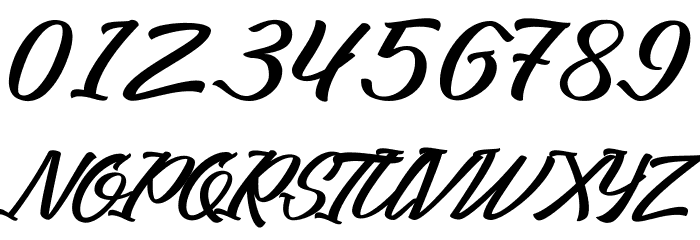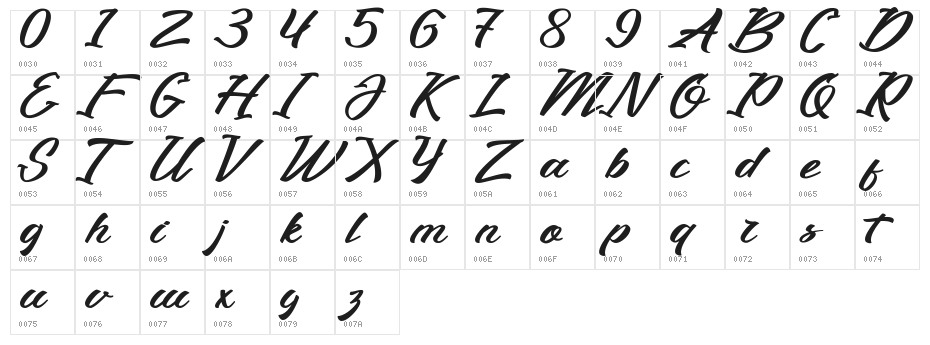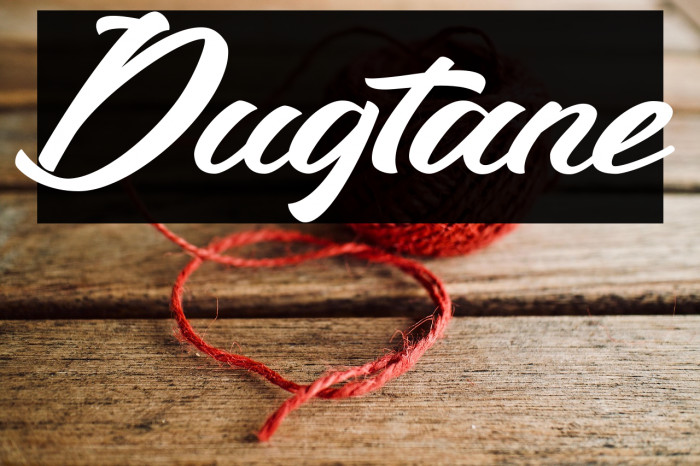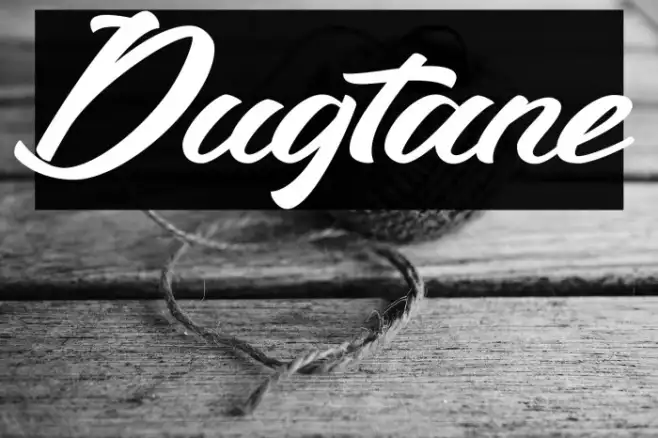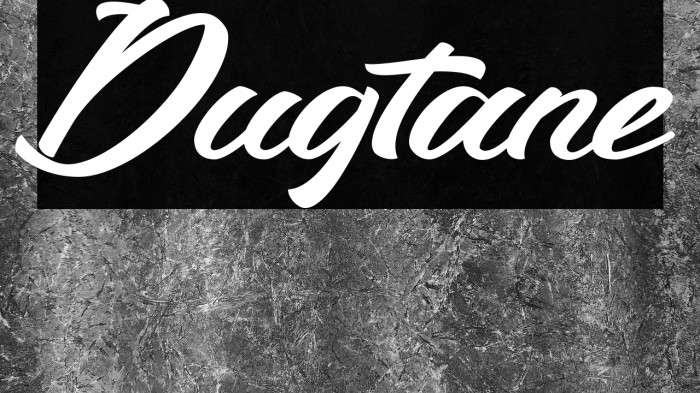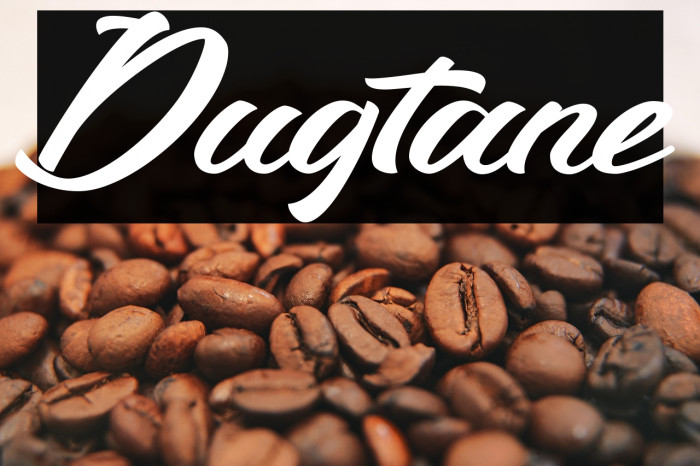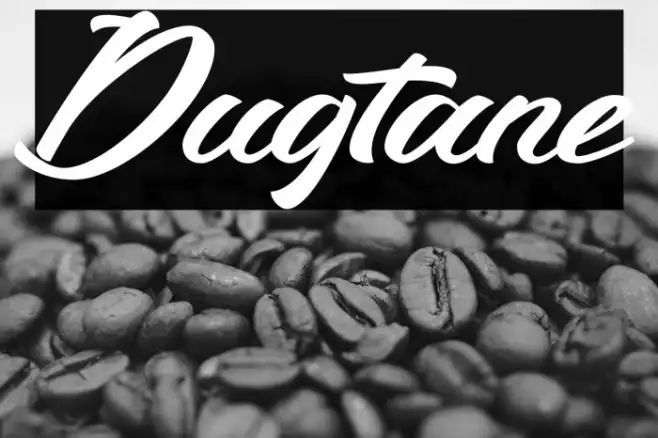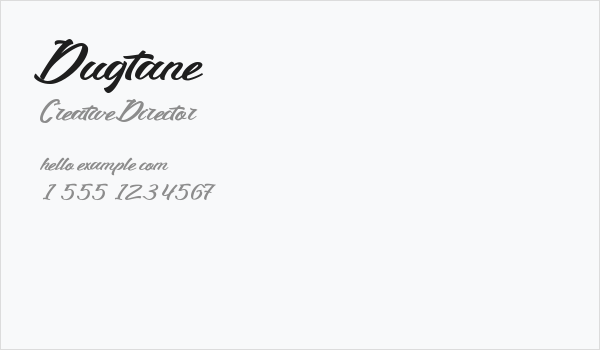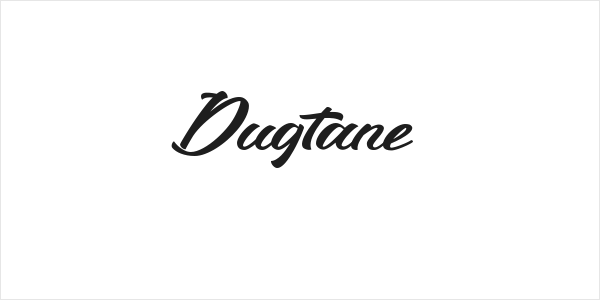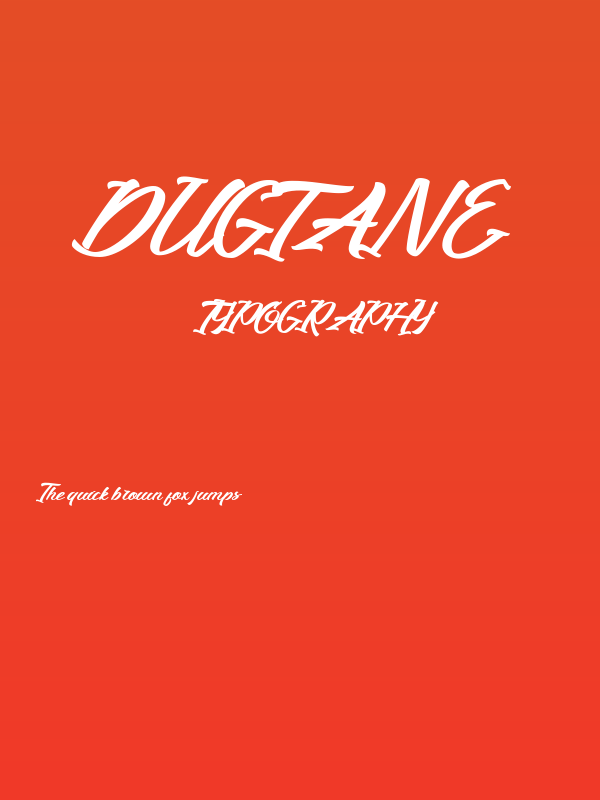
Dugtane Font
Dugtane Description
This font features a dynamic and flowing script style, characterized by its elegant and cursive letterforms. The uppercase letters exhibit a bold and confident presence, with sweeping curves and intricate details that enhance its decorative appeal. The lowercase letters maintain a consistent fluidity, seamlessly connecting to create a harmonious and continuous text flow. The numerals are designed with the same attention to detail, ensuring readability while maintaining the overall aesthetic. Special characters are thoughtfully integrated, complementing the font's artistic flair. This font is ideal for projects that require a touch of sophistication and creativity.
| Proposed Projects | Ideal for wedding invitations, branding, logo design, and elegant stationery. |